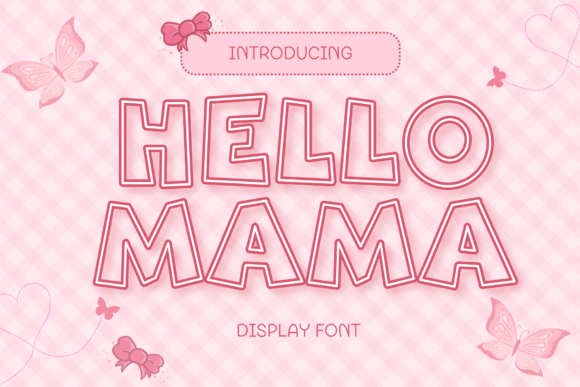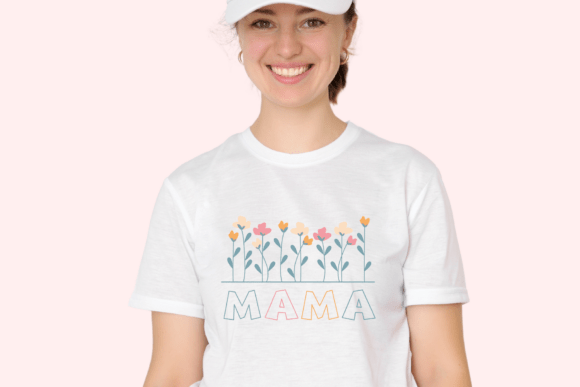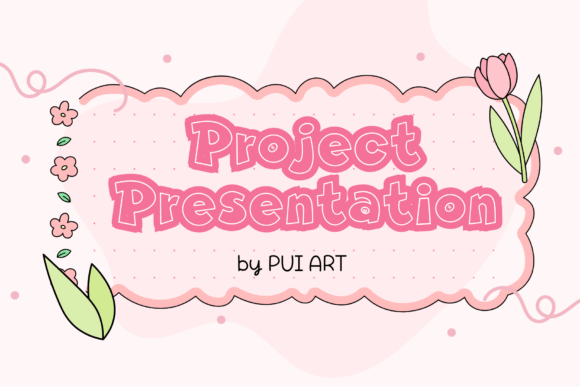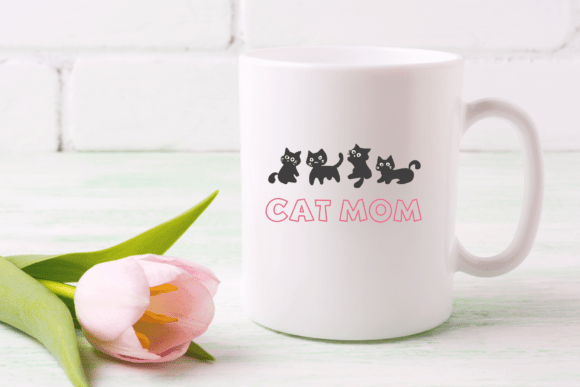
Hello Mama Font: A Cute & Playful Display Font for Cricut!
About the Hello Mama Font
The wait is over! The incredible Hello Mama Font is now available for your design toolkit. Hello Mama is a fun and cheerful typeface. This font is designed to convey a cheerful and affectionate message, perfect for use on social media, invitations or other digital designs. With its expressive and letter style, this font adds playfulness and warmth to the design, creating a unique and interesting impression.
Hello Mama’s playful energy makes it ideal for headlines, short-form content, branding for children’s products or lifestyle brands emphasizing fun and approachability, and social media graphics. It shines in applications requiring a friendly and approachable tone. However, its less-than-optimal x-height and character spacing make it unsuitable for body text or UI elements requiring high readability.
Pairing Hello Mama with a clean sans-serif like Open Sans for body copy creates a balanced and visually appealing contrast. For a more sophisticated feel, consider pairing it with a classic serif like Garamond for secondary text elements. Avoid pairing it with other highly decorative or playful fonts; the combination might appear cluttered and overwhelming.
Its core personality is undeniably cheerful and friendly, conveying warmth and approachability. This makes it a strong choice for projects aiming for a lighthearted, optimistic aesthetic.
Hello Mama Font Usage Examples
Hello Mama Font Example